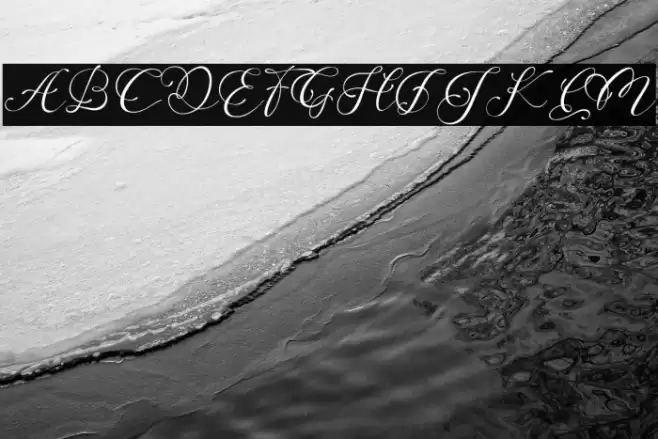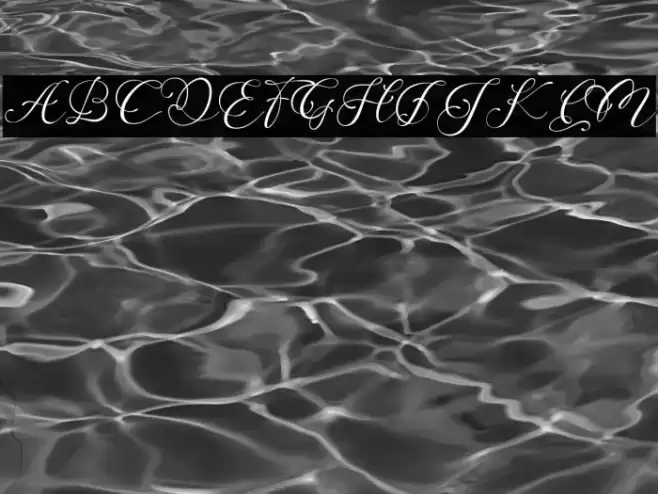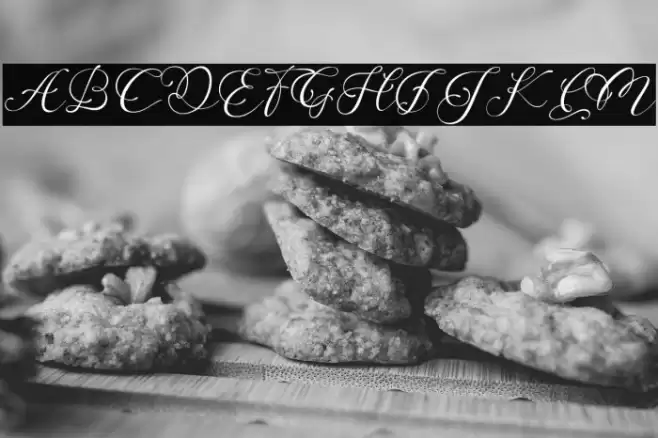
Adonessia Demo Font
Adonessia Demo Description
This elegant script font features a flowing, cursive style with intricate loops and flourishes. The uppercase letters are ornate, with sweeping curves that give a sense of movement and grace. The lowercase letters maintain a consistent style, with elongated ascenders and descenders that enhance the font's decorative appeal. The overall design is sophisticated and artistic, making it ideal for formal invitations, branding, and creative projects. The font's high contrast between thick and thin strokes adds to its visual interest, while the character spacing is slightly tight, contributing to its cohesive appearance.
An elegant, flowing script font with intricate loops and high contrast from Uncategorized fonts.
- Font: Adonessia Demo
- Proposed Projects: Ideal for wedding invitations, luxury branding, artistic projects, and elegant stationery.
- Character Spacing: Tight
- Use Case: Logos, Invitations, Artistic projects